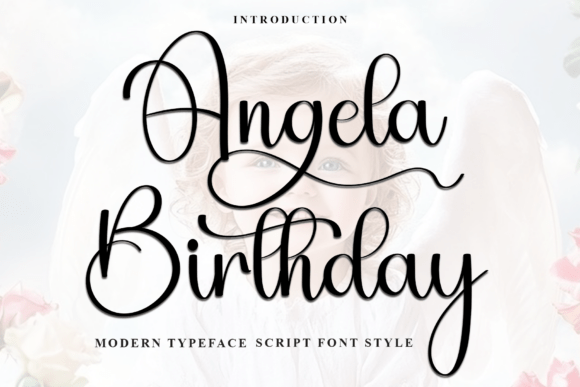
Bringing Joy to Your Designs: Introducing Angela Birthday Font
Have you ever stumbled upon the perfect font for a project, and it instantly brings your creative vision to life? That’s exactly what happens when you discover the Angela Birthday Font. This beautiful and eye-catching typeface is designed to add a soft, unique touch to your designs, making them truly special.
The Angela Birthday Font is a versatile tool for designers, perfect for a wide range of projects, from crafts and art to digital designs. Its distinctive strokes give it a special character, making it meaningful and memorable. With various characters to choose from, you can express your creativity and bring your ideas to life. Whether you’re working on a personal project or a professional design, the Angela Birthday Font is an ideal choice.
Angela Birthday Font Key Features
- Unique Characteristics: The Angela Birthday Font features a playful, cursive design with swashes and flourishes, making it ideal for creating festive and celebratory content, such as birthday invitations, party decorations, and gift tags.
Review of Angela Birthday Font
Overall, I was excited to dive into the Angela Birthday Font, and while it has its charm, it also has some limitations. Let’s start with the good stuff:
- ✨ The font’s playful and whimsical feel is perfect for birthday-themed projects. It adds a touch of fun and celebration to any design.
- ✨ The font is highly customizable, with a range of sizes, colors, and styles to choose from. This makes it easy to adapt to different design needs.
- ✨ The font’s OpenType features allow for advanced typography capabilities, such as ligatures and swashes, which can add an extra layer of sophistication to designs.
- ⚠️ The font may not be suitable for professional or formal designs, as it can come across as too playful or childish.
- ⚠️ Some characters, such as the ampersand (&), may not be as neatly designed as others, which can be a distraction in certain contexts.
- ⚠️ The font’s large size and weight can make it difficult to read in certain situations, such as in small text or at a distance.
Overall, I think the Angela Birthday Font is a great addition to any designer’s toolkit, but it’s essential to use it judiciously and consider the context in which it will be used. With a little creativity and restraint, it can be a fantastic choice for birthday-themed projects or other designs that need a playful touch.
Use Angela Birthday Font for creating custom birthday invitations, party decorations, and social media posts.
For best results, pair the font with bold and colorful graphics to create a festive atmosphere.
Experiment with different font sizes, colors, and styles to achieve the desired look and feel.